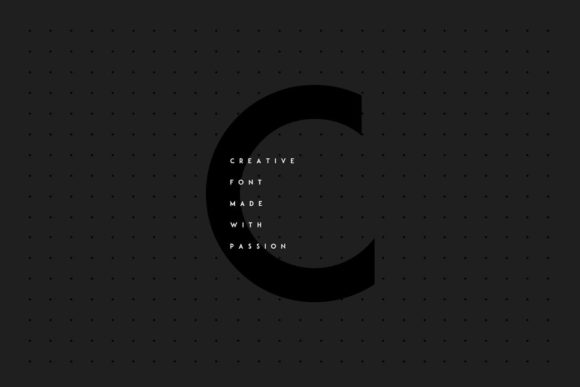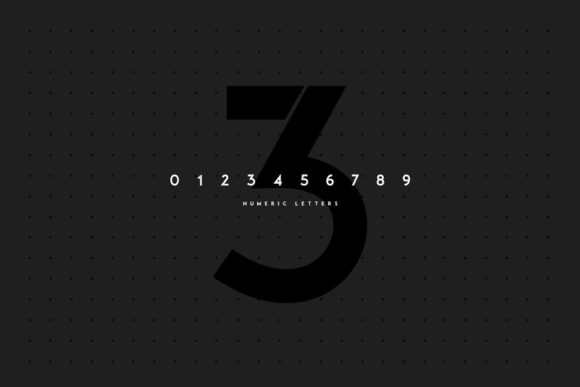
The Birth of a New Creative Era: Carbon Font
Have you ever been in a state of creative flux, with ideas swirling around in your mind, but unable to bring them to life? That’s where the perfect font can make all the difference. A well-chosen font can elevate your design from bland to grand, and for many designers, that perfect font is Carbon Font.
Carbon Font is a simple yet striking sans serif font that embodies the perfect blend of natural and unique styles. Its versatility makes it a go-to choice for designers across various industries, from graphic design to digital media. What sets Carbon Font apart is its ability to adapt to any design, limited only by your imagination. Whether you’re working on a logo, brochure, or website, Carbon Font is the perfect tool to bring your vision to life.
Carbon Font Key Features
- Font Size: Carbon Font has a total of 30 font weights, ranging from Thin to ExtraBold, providing users with a high degree of flexibility in terms of font styling and customization.
- Resolution: Carbon Font is designed to be highly legible at various resolutions, including low-resolution devices, ensuring that the font remains clear and readable across different screen sizes and devices.
- Unique Characteristics: Carbon Font features a unique blend of geometric and organic shapes, resulting in a distinctive and modern aesthetic that is well-suited for a wide range of applications, from digital products to print materials.
- Kerning and Ligatures: Carbon Font includes advanced kerning and ligature features, ensuring that the font looks its best in a variety of contexts and applications.
Carbon Font Review
As a designer, I’ve had the chance to work with Carbon Font, and I must say it’s been an interesting experience. Here are some of my thoughts on what works well and what doesn’t.
- Unique aesthetic: Carbon Font has a distinct, futuristic look that can add a touch of modernity to any design. Its clean lines and geometric shapes make it perfect for tech-related projects or futuristic themes.
- High legibility: Carbon Font is highly legible, even at small font sizes, which makes it a great choice for body text or titles.
- Customization options: Carbon Font offers a range of customization options, including font weights, styles, and sizes, which allows designers to tailor the font to their specific needs.
- Limited language support: Carbon Font’s language support is limited, which may be a problem for designers working on projects that require multiple languages.
- No support for italics: Carbon Font does not support italics, which may limit its use in certain design scenarios.
- Not suitable for all typography: While Carbon Font is great for certain projects, it may not be the best choice for projects that require a more traditional or classic typography style.
Overall impression
Overall, Carbon Font is a solid choice for designers who are looking for a unique and modern font. While it has some limitations, its customization options and high legibility make it a great option for the right projects. I would recommend it to designers who are working on tech-related projects or futuristic themes, but may not be the best choice for more traditional or classic design scenarios.
The Carbon Font is ideal for:
- Modern and sleek designs
- Technology and software-related projects
- Business and corporate branding
Tips for Getting the Most Out of Carbon Font
To get the most out of Carbon Font, keep the following tips in mind:
- Use it in combination with other modern fonts for a cohesive look.
- Pair it with bold and bright colors to create a striking design.
Alternatives to Carbon Font for Designers
Inter Font is a highly legible sans-serif typeface designed by Rasmus Andersson. It’s ideal for body text and long-form content due to its clear and open design. Inter Font is similar to Carbon Font in its clean and modern aesthetic but has a more geometric and technical feel.